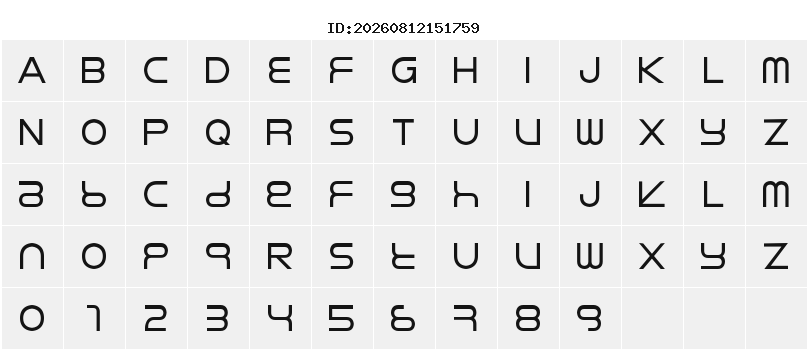
• Font Name: Rikos
• Full Font Name: Rikos
About Rikos.ttf
Rikos.ttf is a modern, elegant sans-serif font designed for ultimate readability and visual harmony. Perfect for branding, headlines, web design, and print materials.